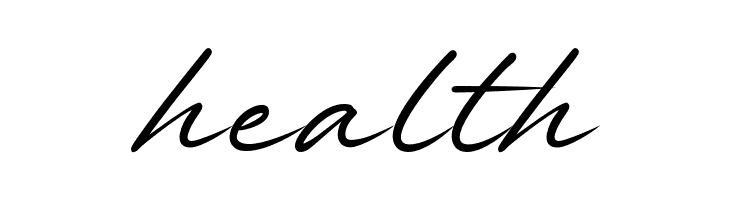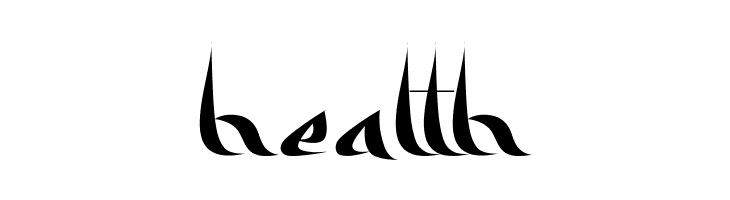
A geometric, angular font with a wireframe appearance and thin strokes.
A modern, artistic font with sharp, angular strokes and high contrast.
A bold, flowing script font with elegant curves and high contrast.
A playful, handwritten font with dynamic strokes and an informal style.
A bold, flowing script font with high contrast and elegant cursive elements.
A dynamic handwritten font with fluid strokes and a casual, sophisticated appearance.
A dynamic script font with elegant curves and fluid strokes.
A flowing script font with elegant curves and artistic flourishes.
A modern, elegant script font with fluid strokes and decorative flourishes.
An elegant cursive font with fluid, connected characters.